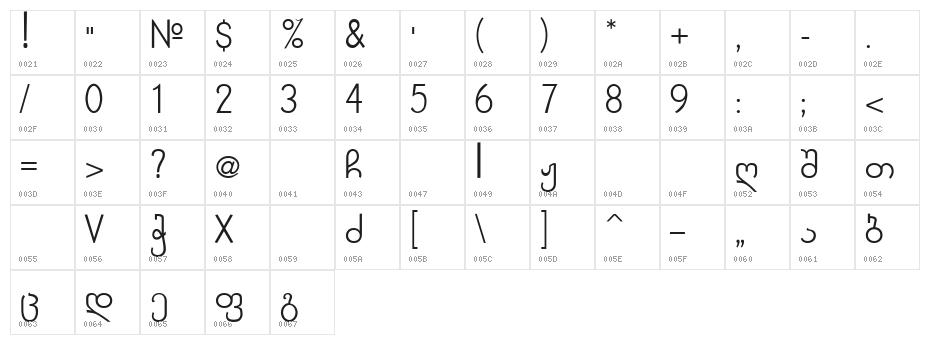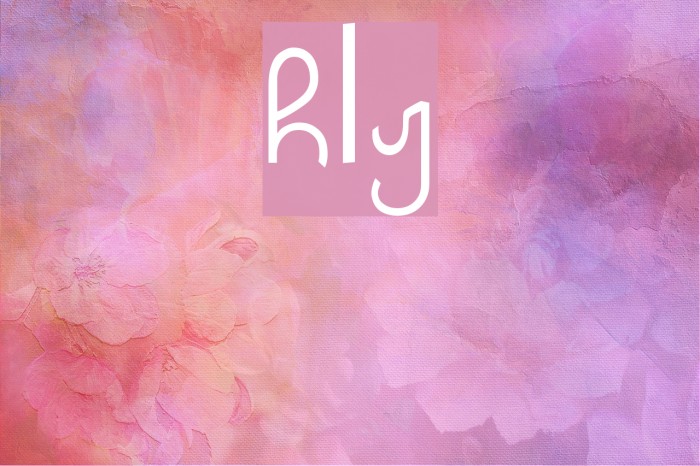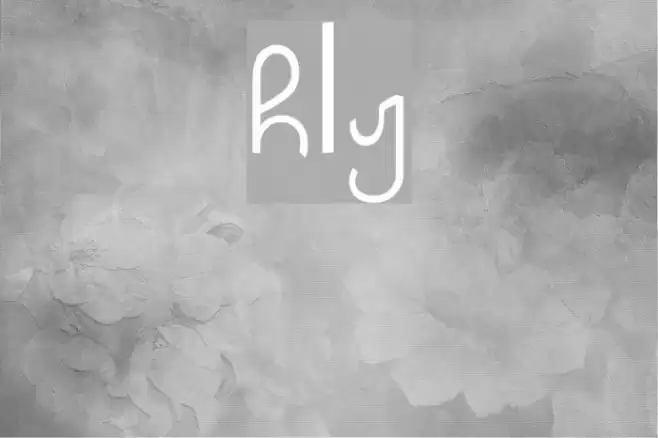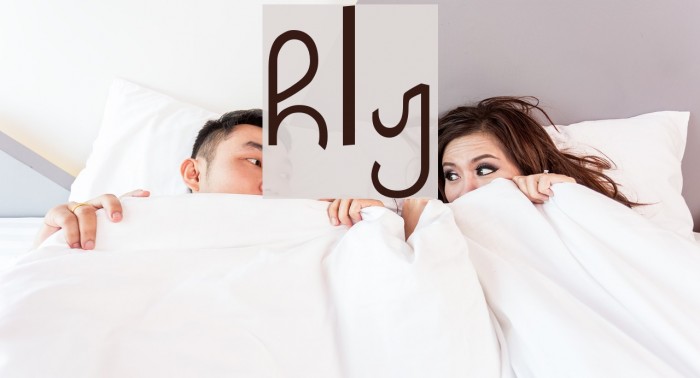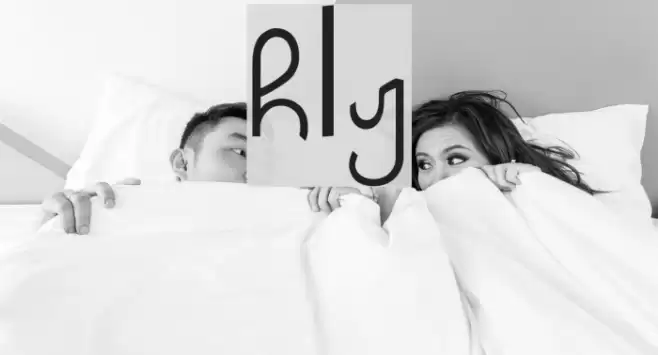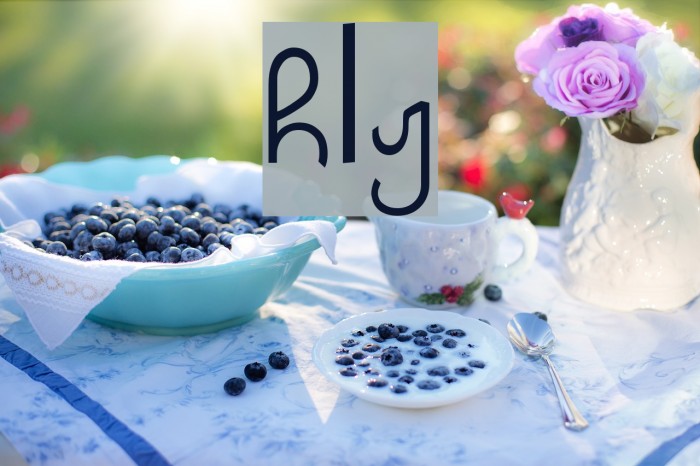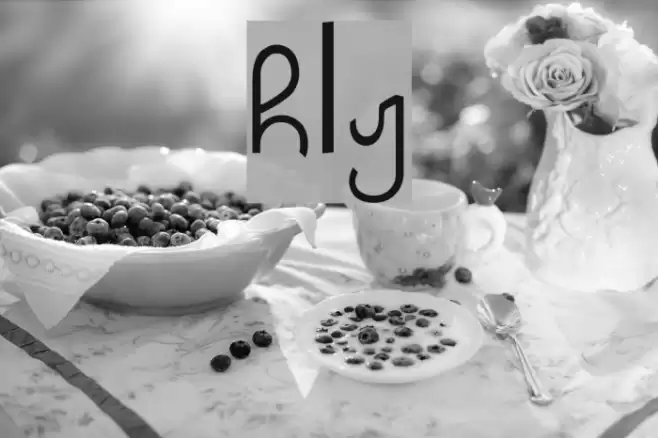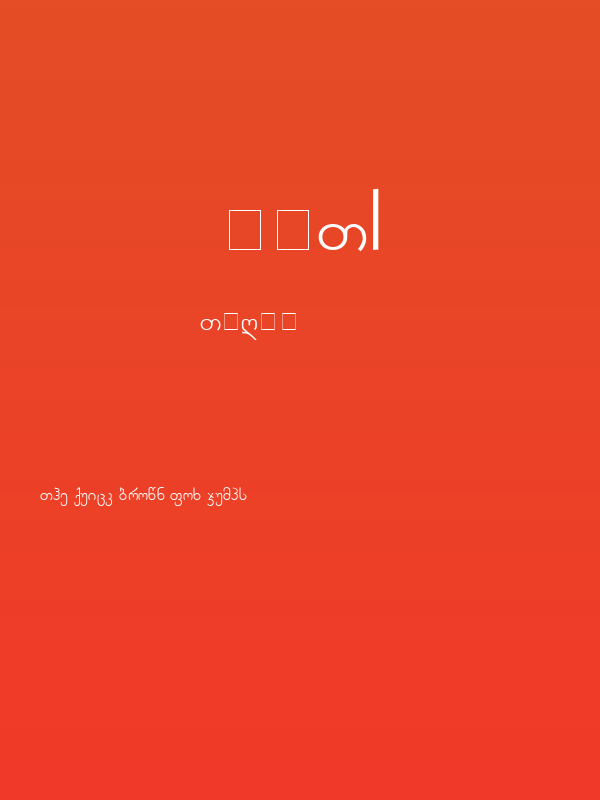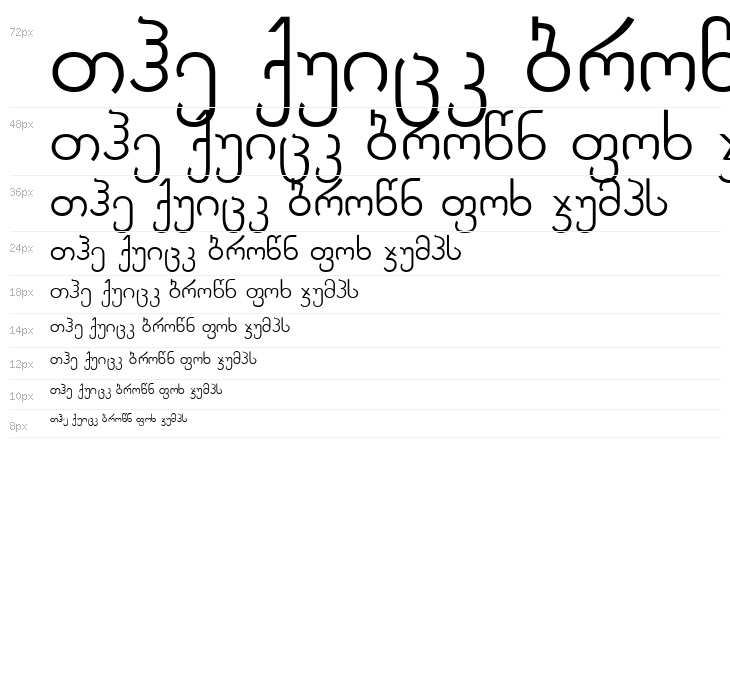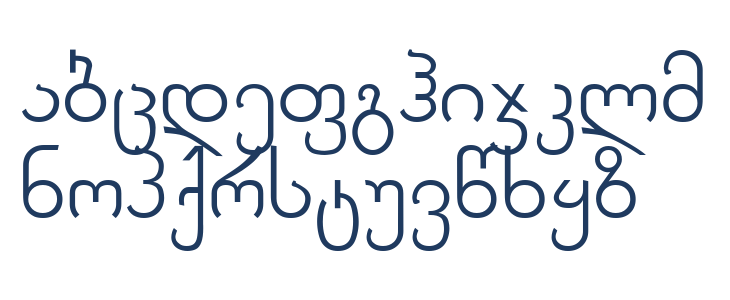
Phatima Font
Phatima Description
This font features a unique and artistic style, characterized by its flowing and curvilinear forms. The characters exhibit a blend of modern and traditional elements, with a focus on smooth, rounded edges and a playful yet sophisticated appearance. The numerals and special characters maintain the same aesthetic, providing a cohesive look across all glyphs. The font's design is both eye-catching and versatile, making it suitable for a variety of creative applications.
| Use Case | Logos, Artistic projects, Invitations |
| Proposed Projects | Ideal for branding, artistic projects, invitations, and creative digital content. |